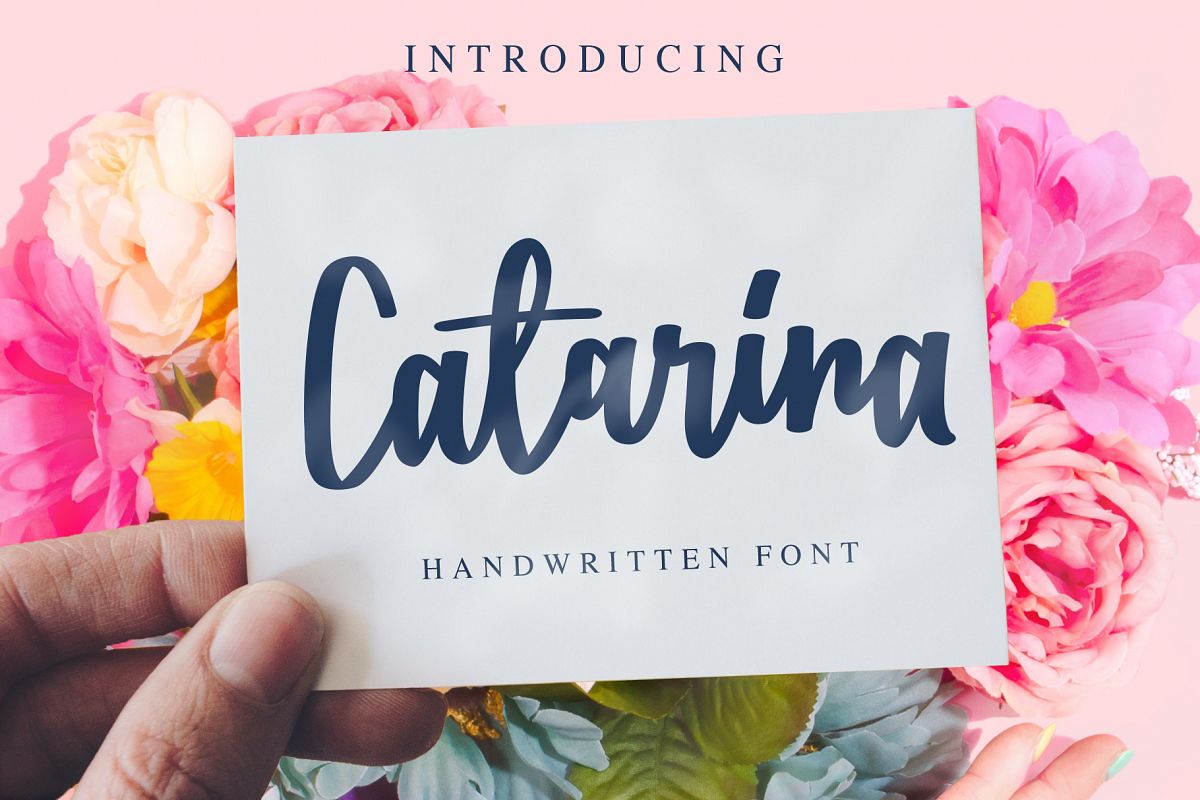
Catarina - a Handwritten Font
Catarina - a Handwritten Font is a handwritten script font with a simple and classy style, this font is great for your next creative projects such as watermark on photography, quotes, album cover, logo, business card, and many other design project. From business cards to photo watermarks, Catarina is here to elevate your work to the highest level.
Catarina comes with uppercase letters, lowercase alternative letters, numbers, punctuation, ligature tt and multi lingual support